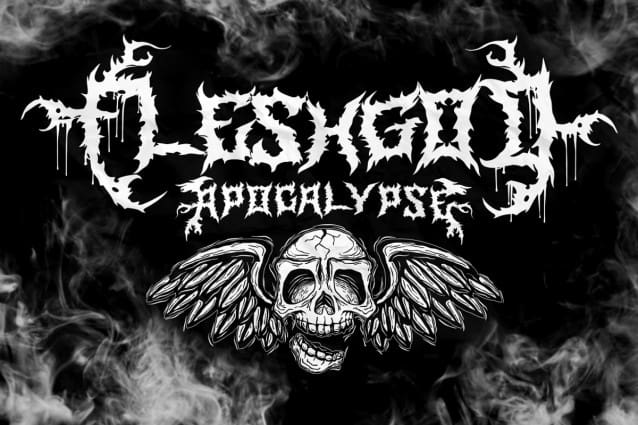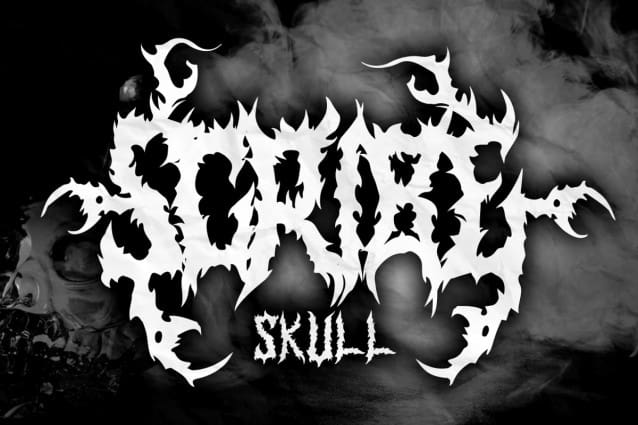
Nekros Metal Font
Nekros Metal Font is a unique typeface that embodies the essence of metal, black metal, heavy metal, and rock culture. With its grunge aesthetics and black letter style, Nekros is not just a font but an experience that transports you to a world where music and typeface merge into one. Every character is meticulously crafted to exude energy, rebellion, and power synonymous with bands and artists of these iconic music genres.
Nekros is versatile; it’s not just a font but a tool that amplifies the visual identity of logos, branding materials, posters, and titles. Imagine the name of a heavy metal band adorned with the intricate characters of Nekros or an event poster screaming for attention – this font is designed for impact. With 402 glyphs supported in 65 languages and eight styles to choose from, customization knows no bounds. Each glyph resonates with the raw energy of live performances echoing the screams of devoted fans.